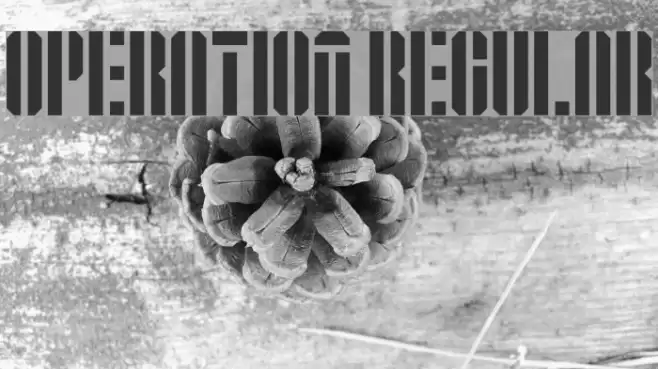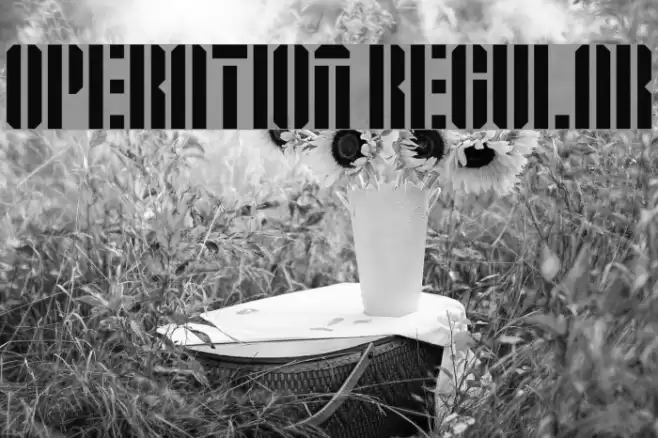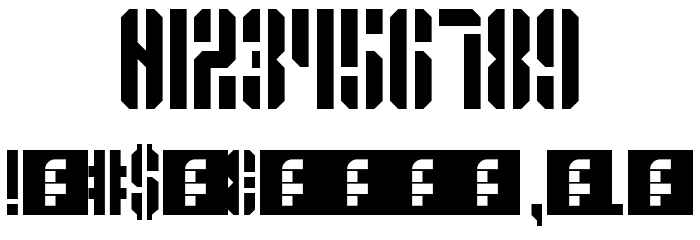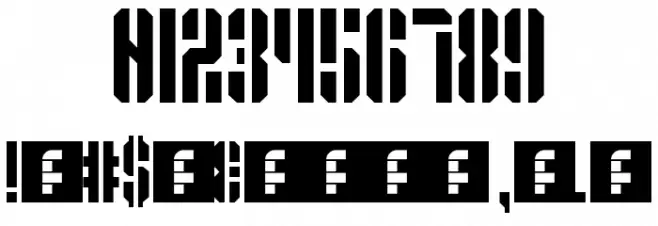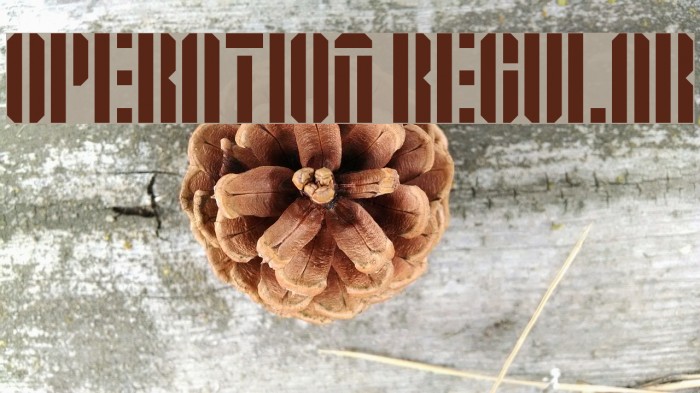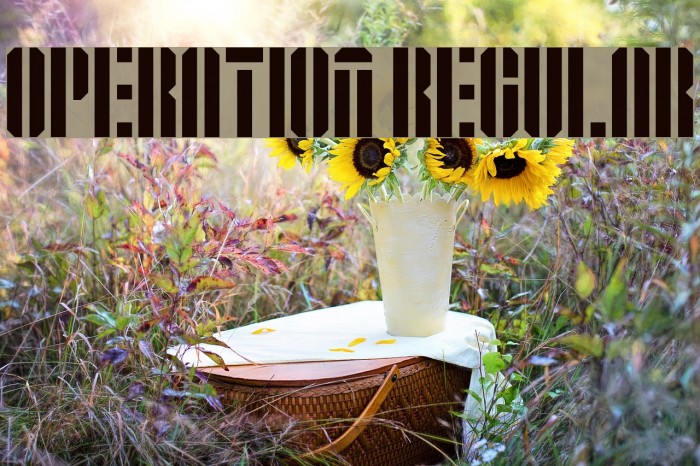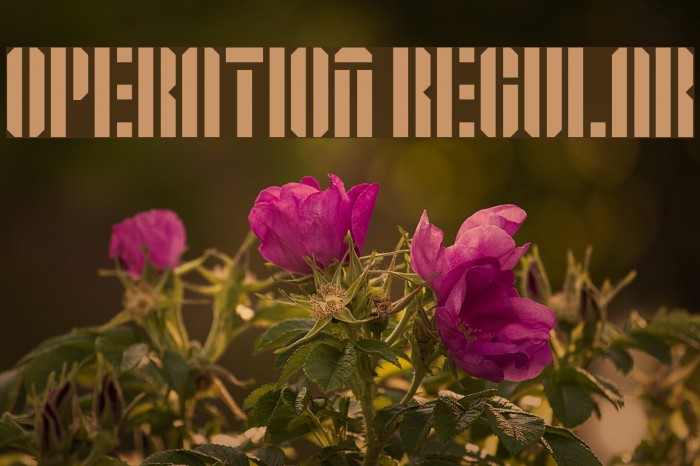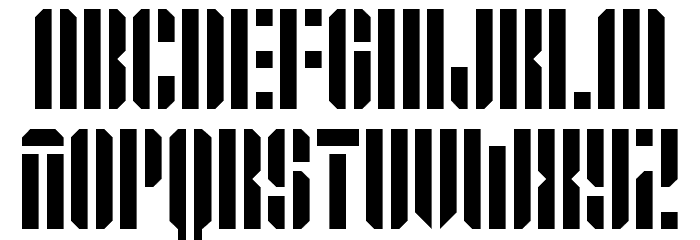
Operation Regular Font
Operation Regular Description
This font features a bold, geometric design with a strong, industrial feel. The characters are constructed with thick, blocky strokes and sharp angles, creating a sense of strength and solidity. The uppercase and lowercase letters maintain a consistent height, contributing to a uniform appearance. The numbers and special characters follow the same robust style, ensuring visual coherence across all elements. The font's design is reminiscent of stencil or military-inspired typography, making it suitable for projects that require a bold, impactful presence.
A bold, geometric font with an industrial, stencil-like design from Uncategorized fonts.
- Overall Style: Industrial, Modern